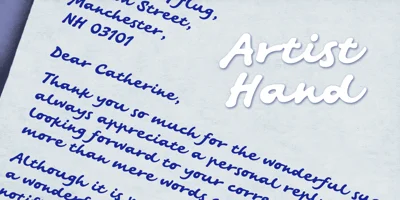
Artist Hand Font
Artist Hand Font is perfect for art gallery branding, creative studio signage, handmade craft packaging, artistic portfolio designs, children's book illustrations, artisan workshop marketing, creative agency identities, and expressive artistic projects.
Artist Hand Font is exciting because it captures the authentic creativity and expressive freedom of artistic handwriting through its organic character design that embodies the spontaneous beauty of hand-drawn lettering and the personal touch of creative expression. Its artistic styling and handmade appeal make it the perfect choice for brands that want to communicate creativity, authenticity, and the inspiring power of artistic expression.
Artist Hand Font family includes multiple creative variations: Artist Hand Regular, Artist Hand Bold, Artist Hand Light, Artist Hand Brush, Artist Hand Sketch, and Artist Hand Paint, along with artistic decorative elements and creative symbols, providing designers with comprehensive tools for creating authentic artistic and handmade-themed brand experiences.
When exploring artistic typography solutions, Artist Hand Font emerges as the definitive choice for designers working on creative and artistic projects that require genuine handmade sophistication and expressive appeal. This inspiring typeface embodies the essence of artistic creativity while offering the versatility needed for modern art marketing and creative brand communications. The font's handmade character and artistic resonance create immediate connections with audiences who appreciate creative expression and authentic artistry.
Creative professionals consistently choose Artist Hand Font for projects requiring authentic artistic sophistication and powerful expressive appeal. Its carefully crafted letterforms feature hand-drawn influences that work exceptionally well in both large-scale art gallery displays and intimate craft product packaging applications. The font's ability to convey creativity and artistic authenticity while maintaining strong brand recognition makes it invaluable for comprehensive identity systems in the art education, creative services, and handmade craft sectors.
Whether you're developing art studio identities, creating creative workshop marketing materials, or designing artistic event promotions, Artist Hand Font delivers the authentic artistic character and expressive appeal that resonates with audiences who celebrate creative freedom and artistic expression. Its artistic significance and handmade design ensure your projects capture the inspiring beauty of artistic handwriting while maintaining contemporary professional standards that attract modern artists and creative expression enthusiasts.